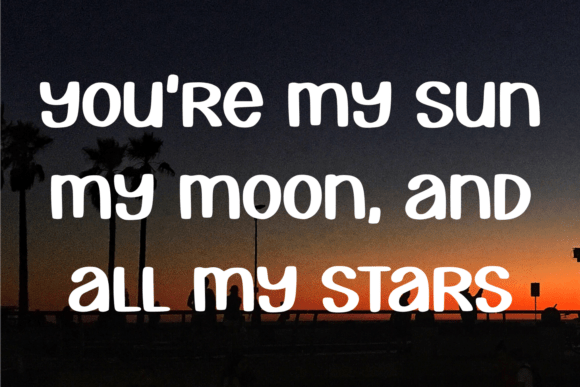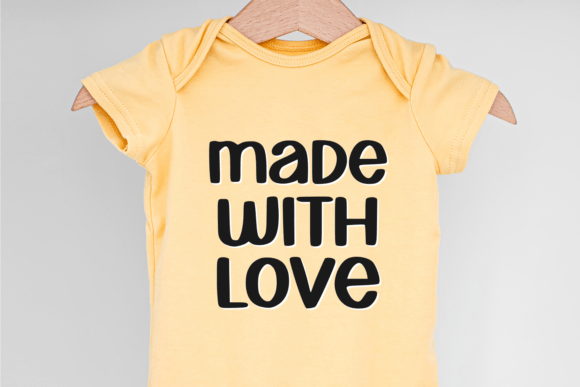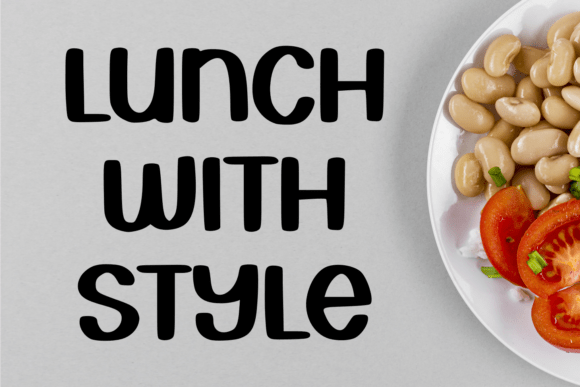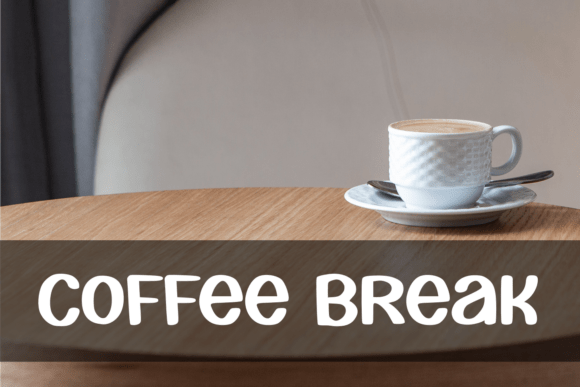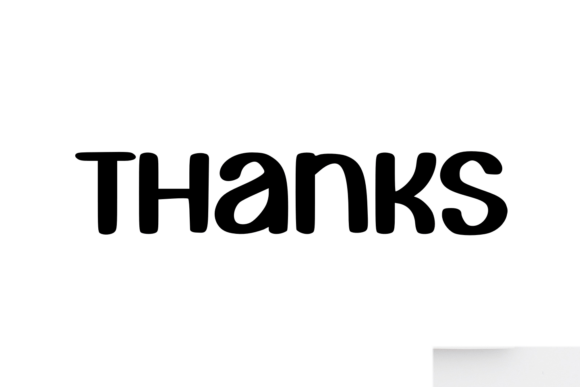
Burger Font: Adding a Dash of Personality to Your Designs
Are you looking for a font that can add a playful touch to your designs? Look no further than Burger Font, a chunky sans-serif that’s perfect for projects that need a friendly and approachable vibe. With its rounded edges and slightly uneven strokes, Burger Font has a handcrafted feel that’s sure to make your designs stand out.
The Characteristics of Burger Font
Burger Font is a unique and eye-catching font that’s designed to bring a casual, laid-back feel to your designs. Its key characteristics include:
- Rounded edges: Burger Font’s rounded edges give it a soft and friendly feel that’s perfect for designs that need to be approachable and inviting.
- Slightly uneven strokes: The font’s slightly uneven strokes add to its handcrafted feel, giving it a unique and personalized touch.
- Chunky sans-serif: Burger Font’s chunky sans-serif design makes it perfect for display text, where its bold and playful character can really shine.
Uses for Burger Font
Burger Font is a versatile font that can be used in a wide range of design projects, including:
- Food truck menus: Burger Font’s playful and appetizing feel makes it perfect for food truck menus, where it can help to entice customers and add a fun touch to your brand.
- Children’s brand logos: The font’s friendly and approachable vibe makes it a great choice for children’s brand logos, where it can help to create a fun and engaging brand identity.
- Quirky social media posts: Burger Font’s bold and playful character makes it perfect for quirky social media posts, where it can help to grab attention and add a touch of personality to your content.
Legibility and Versatility
One of the great things about Burger Font is its legibility, even at small sizes. This makes it a versatile font that can be used in a wide range of design projects, from body text to display text. However, it’s really in display text that Burger Font shines, where its unique character can really stand out and add a touch of personality to your designs.
Why Designers and Crafters Love Burger Font
Designers and crafters love Burger Font for its unique combination of playfulness and legibility. Here are just a few reasons why:
- Adds personality to designs: Burger Font’s bold and playful character makes it perfect for designers who want to add a touch of personality to their designs.
- Easy to read: The font’s legibility makes it easy to read, even at small sizes, which is essential for designers who need to create designs that are both visually appealing and functional.
- Versatile: Burger Font’s versatility makes it a great choice for designers who need a font that can be used in a wide range of design projects.
Tips for Using Burger Font
Here are a few tips for using Burger Font in your designs:
- Use it for display text: Burger Font is perfect for display text, where its bold and playful character can really shine.
- Experiment with different colors: Burger Font’s playful feel makes it a great choice for designs that incorporate bright and bold colors.
- Pair it with other fonts: Burger Font can be paired with other fonts to create a unique and visually appealing design.
Burger Font is a playful and chunky sans-serif that’s perfect for designers and crafters who want to add a touch of personality to their designs. With its rounded edges, slightly uneven strokes, and bold and playful character, Burger Font is a versatile font that can be used in a wide range of design projects. Whether you’re designing a menu for a food truck, a logo for a children’s brand, or a quirky social media post, Burger Font is a great choice for designers who want to create visually appealing and engaging designs.